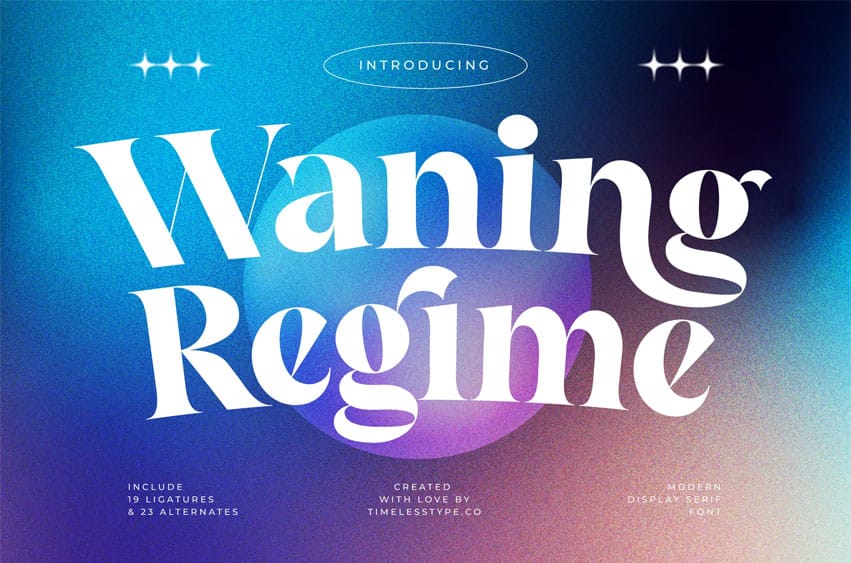
Waning Regime Font is a modern display serif font with fluid curves, bold contrast, and elegant sculpted forms. Its expressive letter shapes and refined proportions create a luxurious yet contemporary aesthetic, perfect for fashion branding, editorial headlines, artistic posters, and premium visual identities.
The font blends soft sophistication with confident character, making every design feel stylish and captivating. With 19 beautiful ligatures and 23 stylistic alternates, Waning Regime offers versatile creative options for standout titles, logo concepts, magazine layouts, and high-end packaging. Its graceful curves, sweeping terminals, and dynamic serif details give designers the tools to craft typography that feels both modern and timeless.